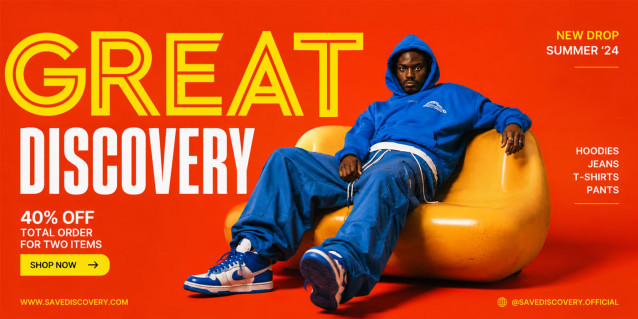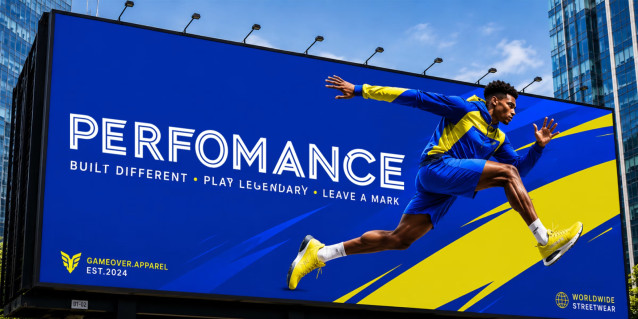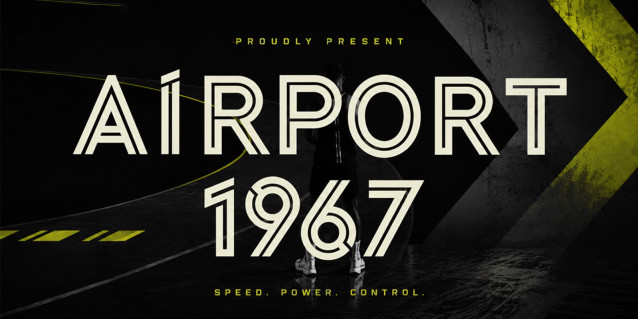
Airport 1967 Font
AIRPORT 1967 font is a distinctive display typeface designed specifically for modern commercial branding, advertising campaigns, and corporate identity. Characterized by its heavy block structures and precise multi-stroke inline paths, this font acts as an instant visual anchor for any promotional layout.
Engineered for maximum screen and print presence, it transforms standard headlines into iconic brand statements that resonate with your target audience.
Key Features for Brand Development:
• Unique Multiline Aesthetic: The parallel inline tracks provide a sophisticated, industrial edge that sets your brand apart from flat, generic typography.
• Rock-Solid Geometry: Built on a heavy, well-balanced foundation to ensure your business identity projects confidence, stability, and professionalism.
• Flawless Readability: Sharp corners and clean lines maintain high legibility even in busy promotional backgrounds and fast-paced digital feeds.